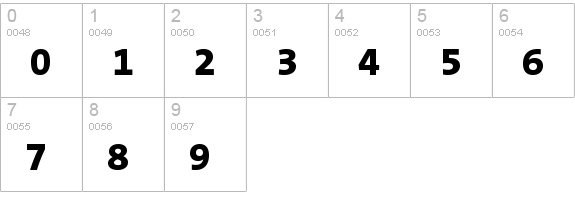
TheSans B8 ExtraBold is an extra-heavy, attention-grabbing variant in the TheSans typeface family \xE2\x80\x94 well suited to high-impact headlines, posters, and bold branding.
TheSans B8 ExtraBold is a bold and impactful font that demands attention and exudes confidence. With its strong and sturdy letterforms, this typeface is perfect for creating eye-catching headlines, logos, and posters. Designed with precision and meticulous attention to detail, TheSans B8 ExtraBold is the epitome of modern sophistication. Its clean and sharp lines give it a sleek and contemporary look, making it a popular choice for a wide range of design projects. This font boasts exceptional legibility, even at smaller sizes, ensuring that your message will be easily read and understood. Whether you're designing a website, a magazine layout, or a branding project, TheSans B8 ExtraBold will make a bold statement and leave a lasting impression. One of the best aspects of TheSans B8 ExtraBold is that it is freely available to download at FontsMarket.com. This means that you can easily access and use this font in your designs without any restrictions. Whether you're a professional designer or a hobbyist, having access to high-quality fonts like TheSans B8 ExtraBold can greatly enhance the visual impact of your projects. So why wait? Experience the power and versatility of TheSans B8 ExtraBold today. Download it for free at FontsMarket.com and elevate your design work to a whole new level.